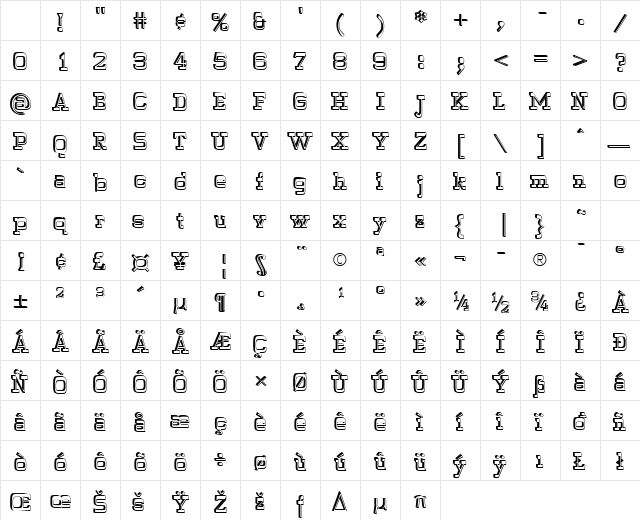
WyomingPastadShadLeft Regular
Design Context for WyomingPastadShadLeft
WyomingPastadShadLeft is a composed and adaptable typeface that performs quietly and consistently across a wide range of design contexts.
Pro Tip: Use WyomingPastadShadLeft in both headline and body roles to test its range before committing to a single application.